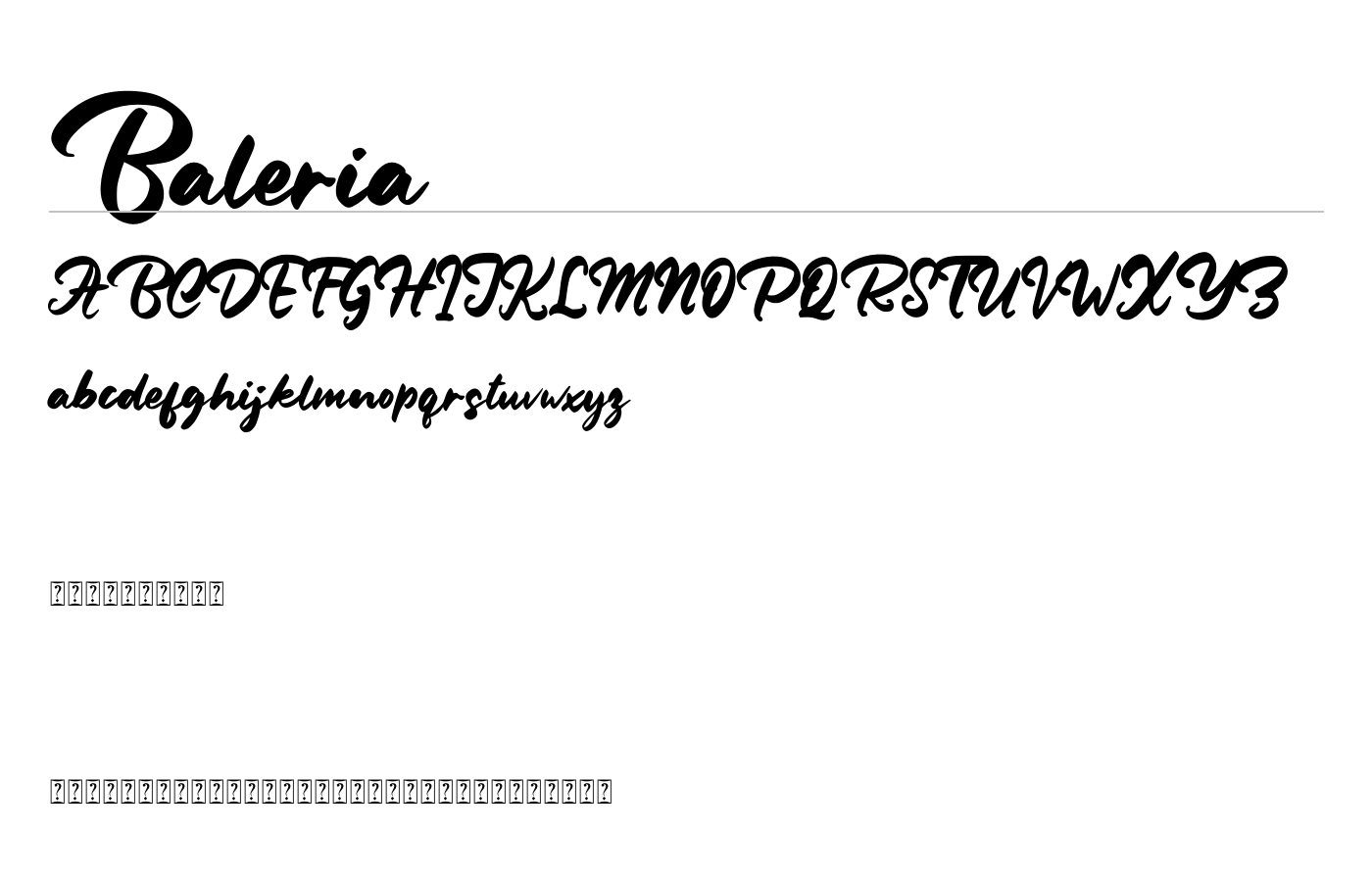
Baleria is a bold, script-style font with smooth, flowing strokes that evoke a sense of elegance and warmth. Its connected, cursive letterforms bring a handwritten charm, making it ideal for branding, invitations, and creative projects that want to convey personality and friendliness. This font works best in headlines and logos where a stylish yet approachable look is desired.
Baleria Font
About Baleria Font
| Font family | Baleria Font |
| Designer | Aldedesign 2019 |